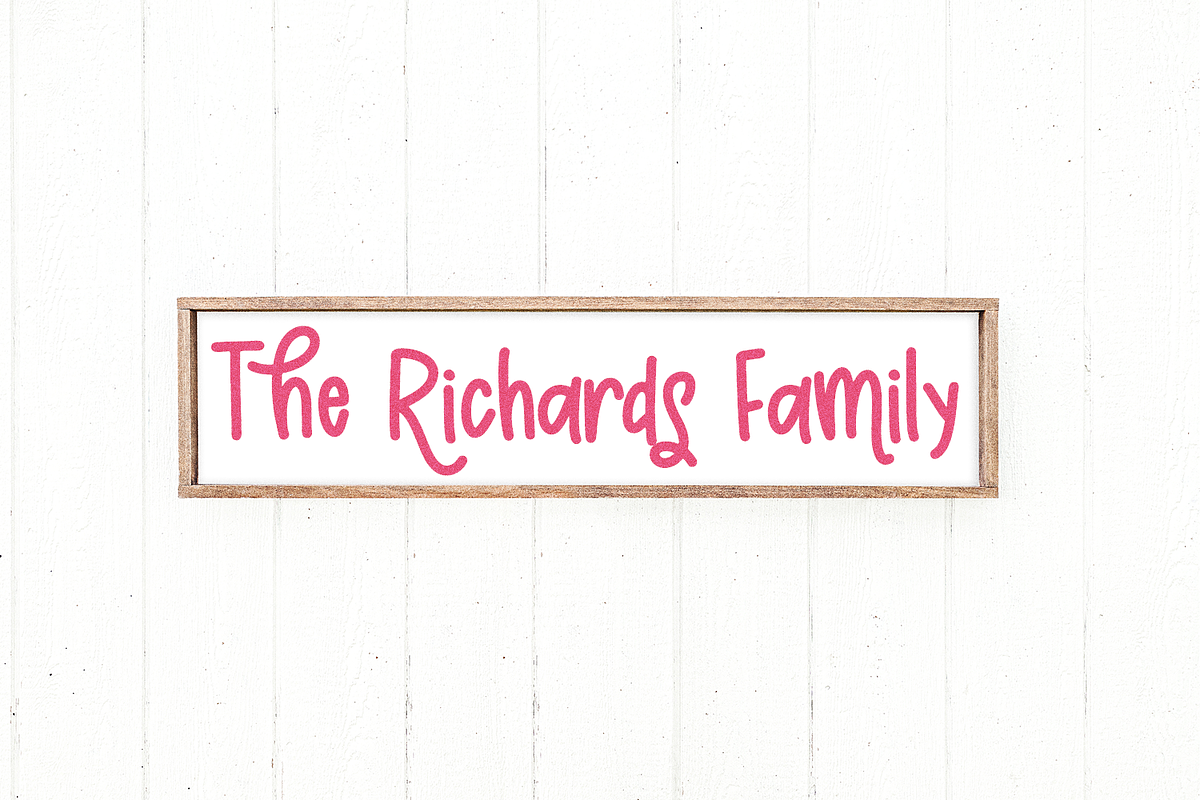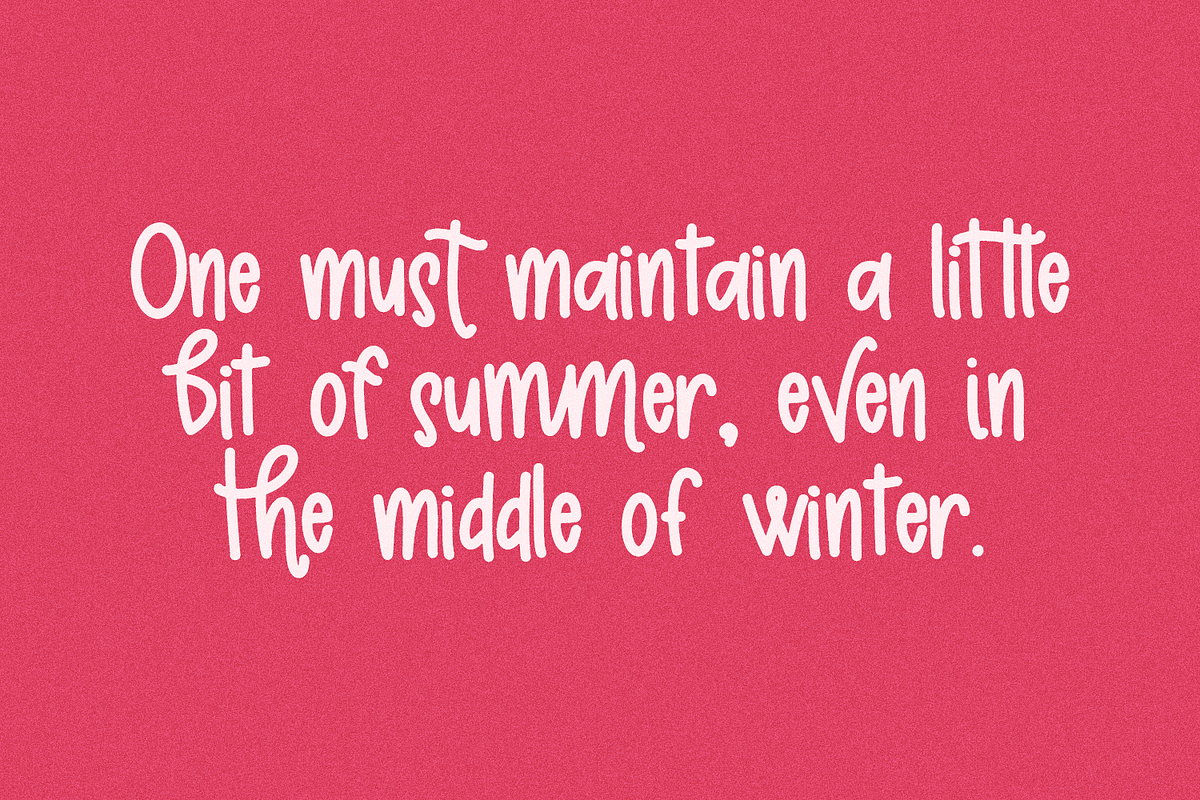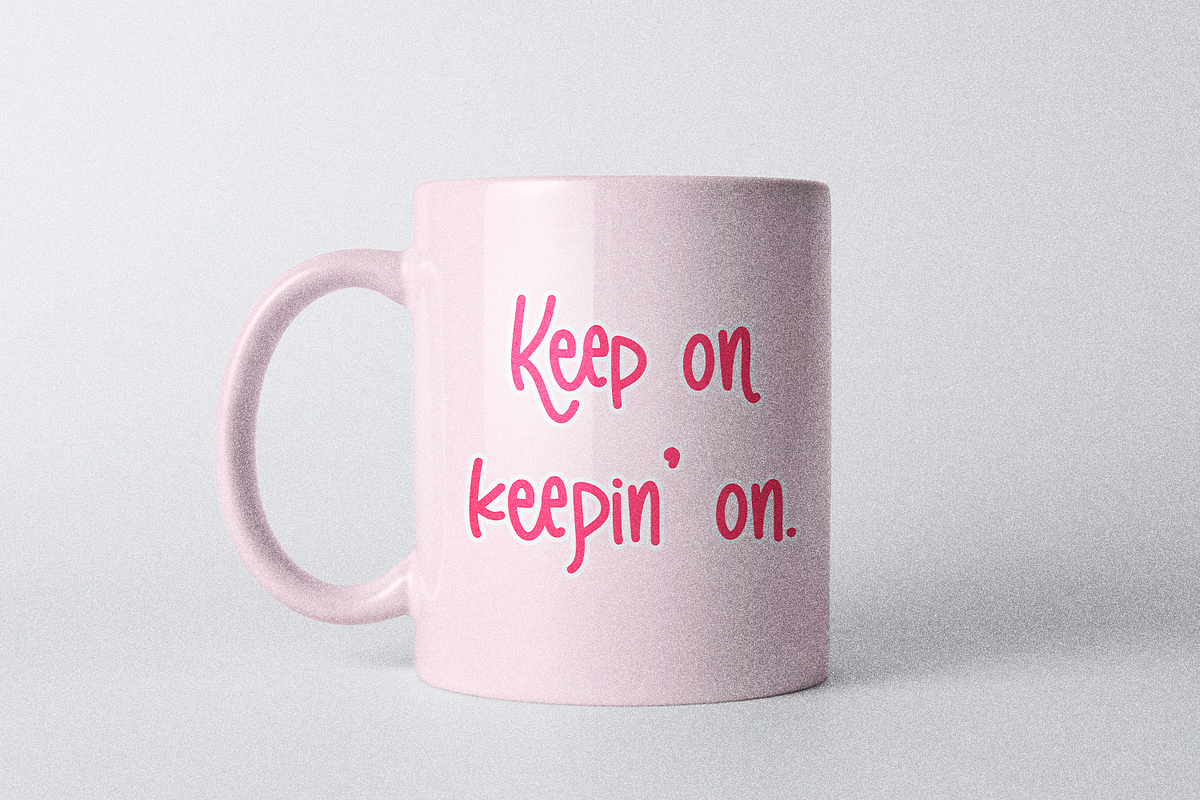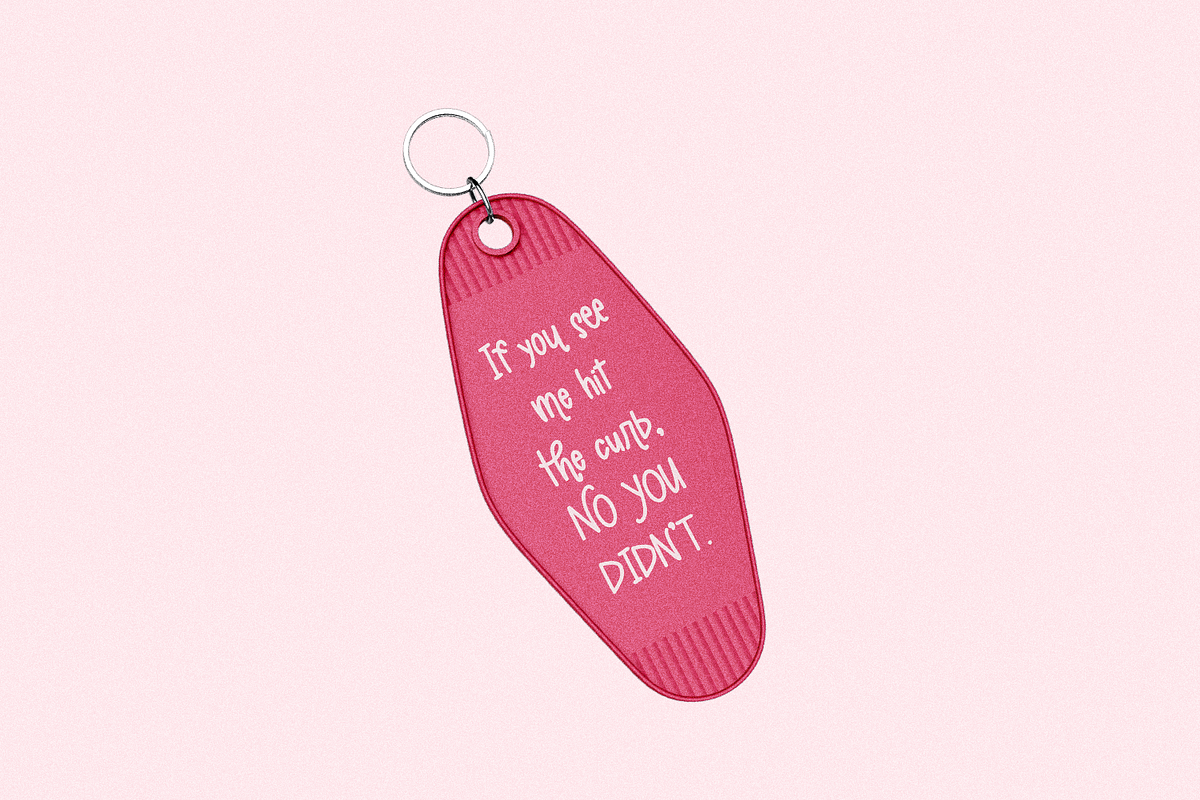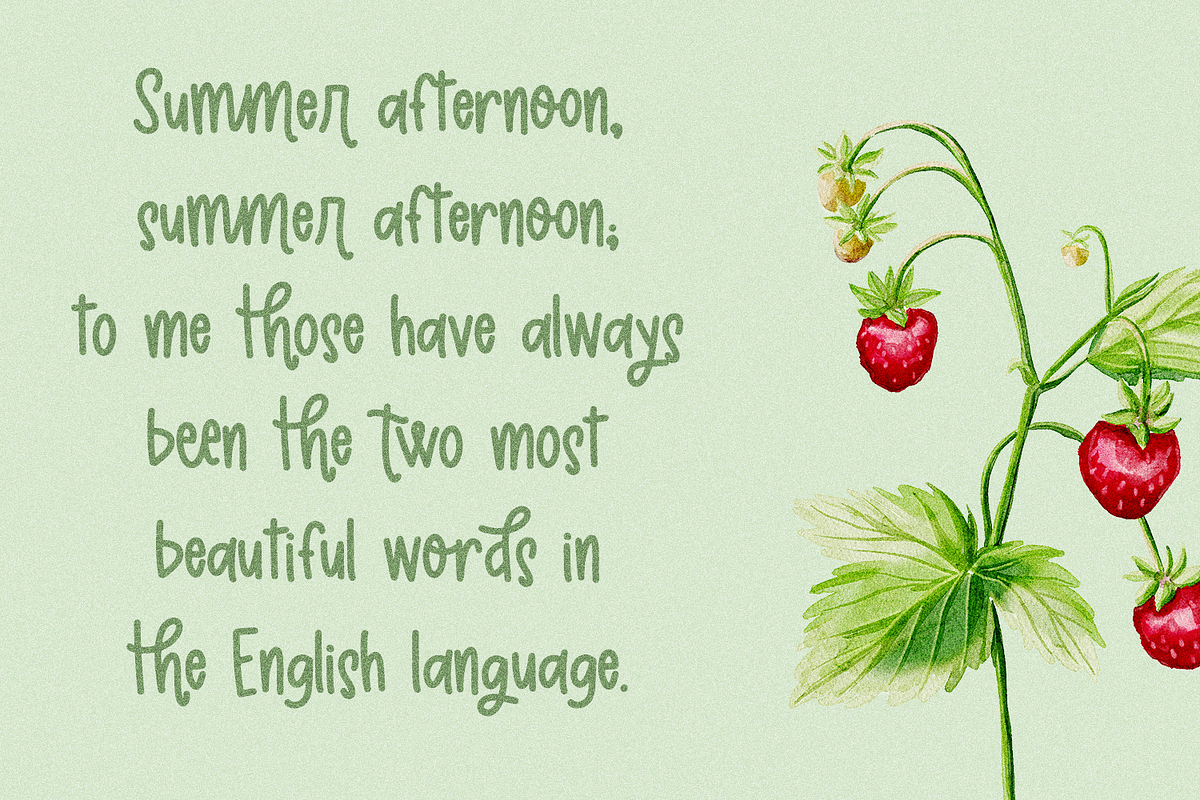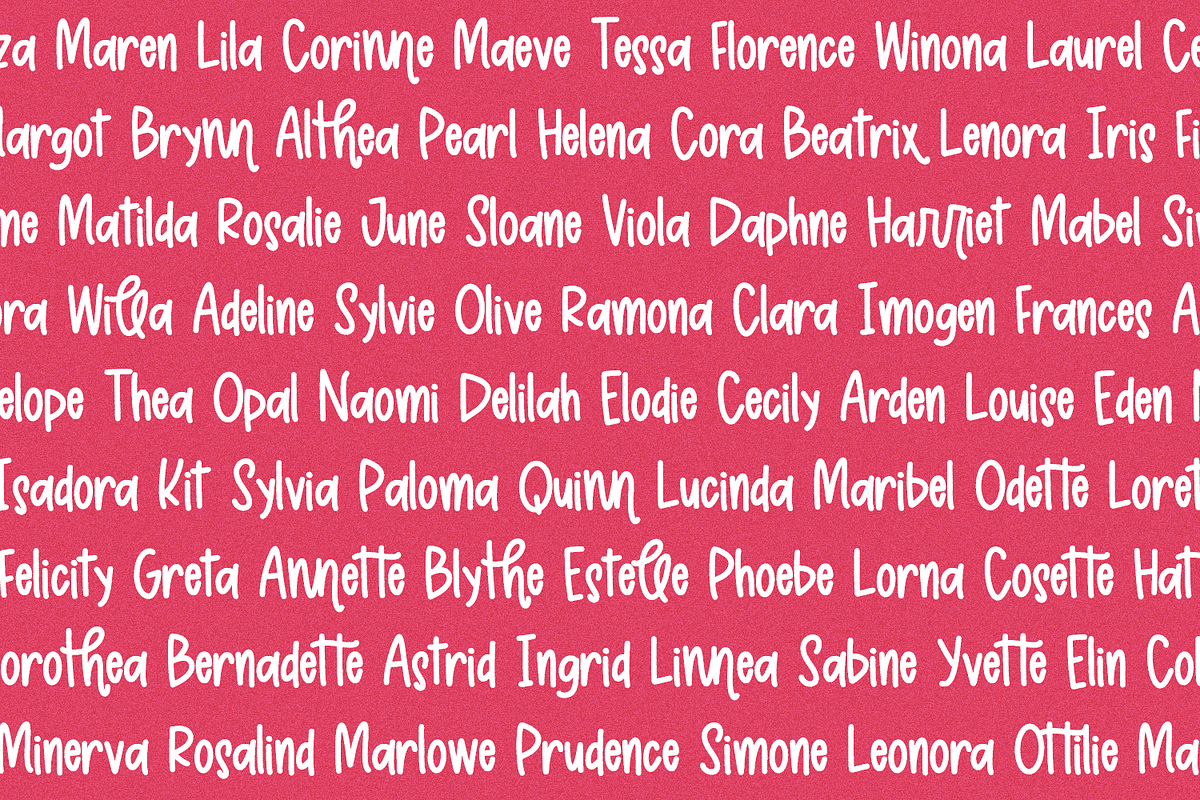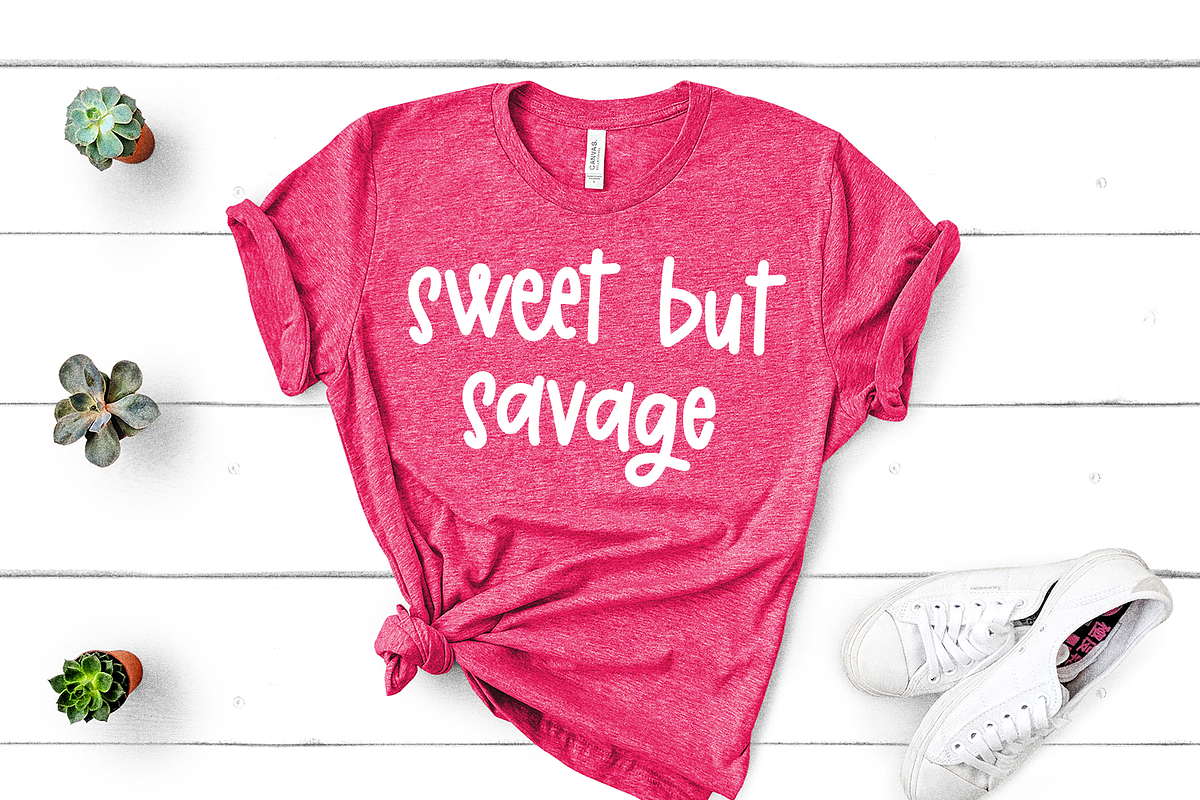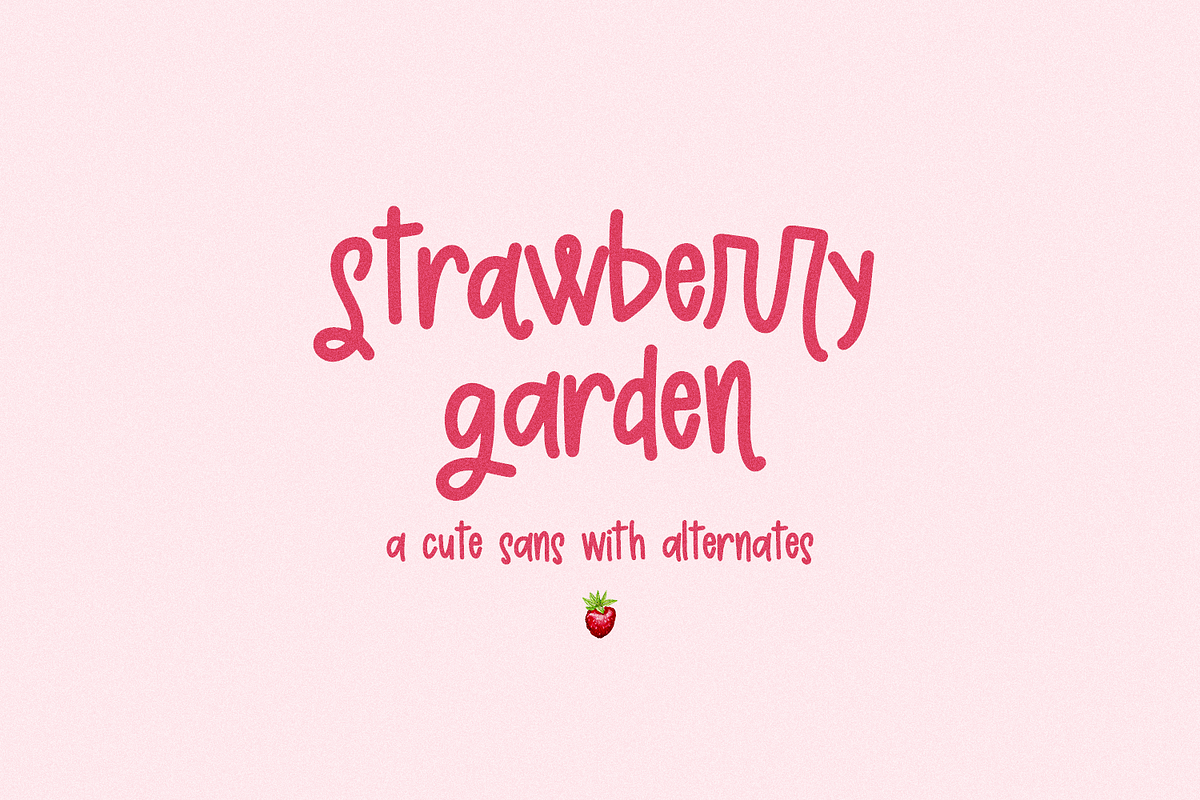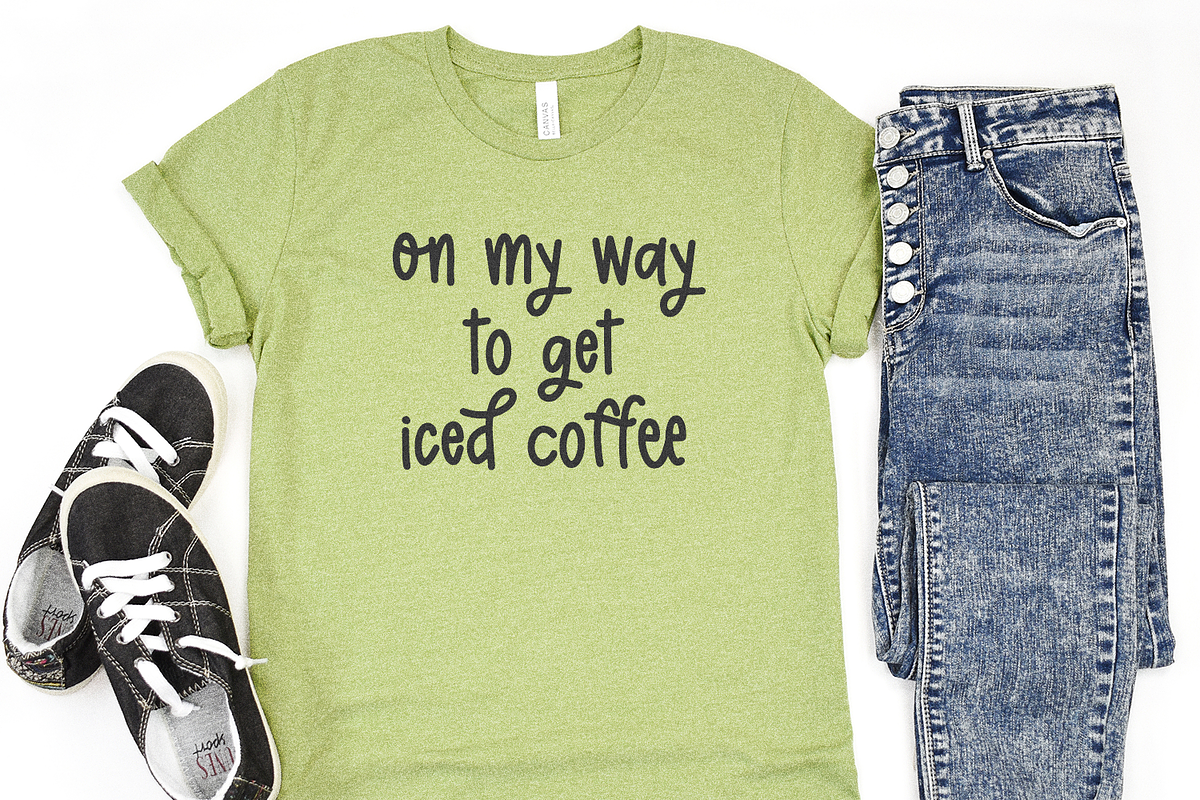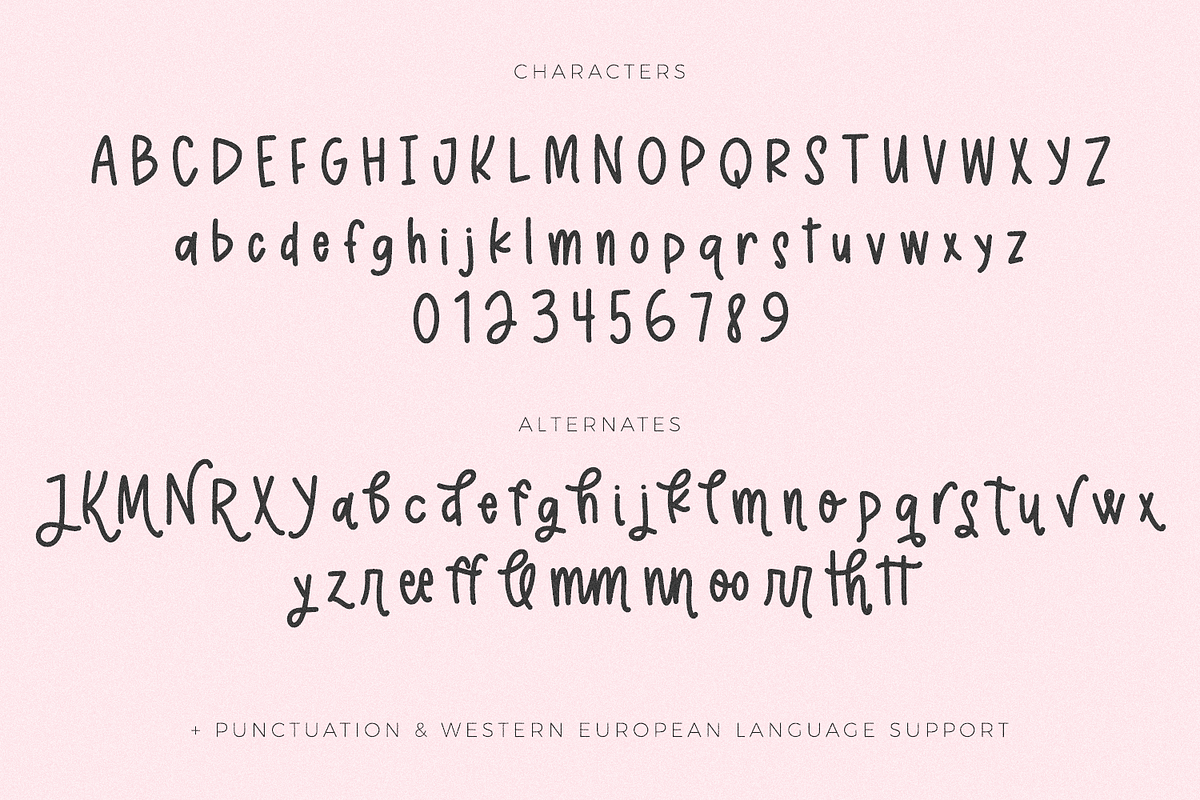
Strawberry Garden Sans
Strawberry Garden Sans is a hand lettered sans font with fun alternates. Strawberry Garden is perfect for logos & branding, greeting cards, painted banners, digital planners, note-taking apps, Canva, Cricut projects, Silhouette projects, designing SVG files, laser cutting projects, & more.
Strawberry Garden includes:
- full upper + lowercase characters
- numbers + punctuation
- 34 alternates - J, K, M, N, R, X, Y, a-z, and a second alternate r
- 9 ligatures - ee, ff, ll, mm,nn, oo, rr, th, tt
- Western European language support - English, French, Spanish, Portuguese (Brazil), Portuguese (Portugal), Italian, German (Germany), German (Austria), Dutch, Danish, Swedish, Norwegian (Bokmål and Nynorsk), Finnish, Icelandic, Irish, Welsh